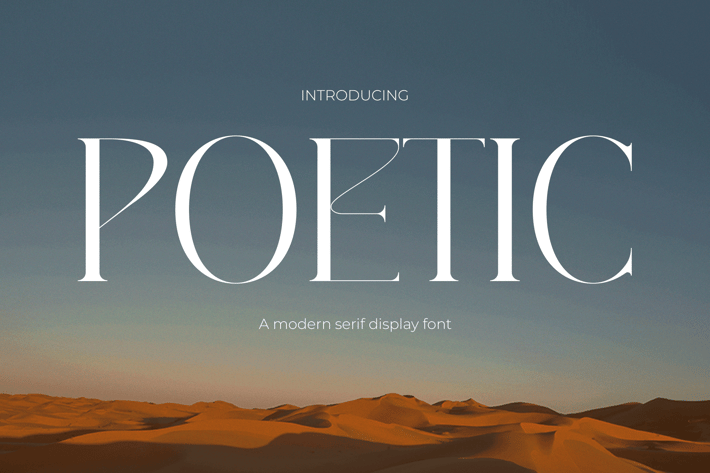
Poetic - Elegance Modern Serif Font
Poetic embodies everlasting elegance with its classic serif style. Its graceful lines strike the perfect balance between tradition and modernity, ideal for fashion, logos, inspirational quotes, inviting invitations, captivating posters, warm greetings, stylish packaging, powerful branding, memorable wedding quotes, versatile covers, and professional business cards.